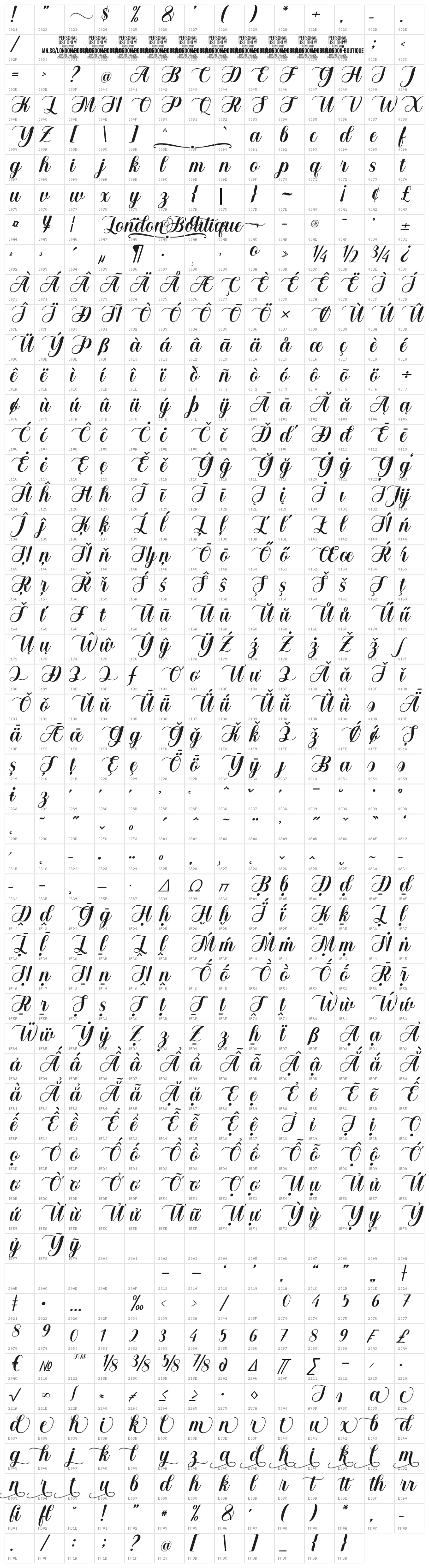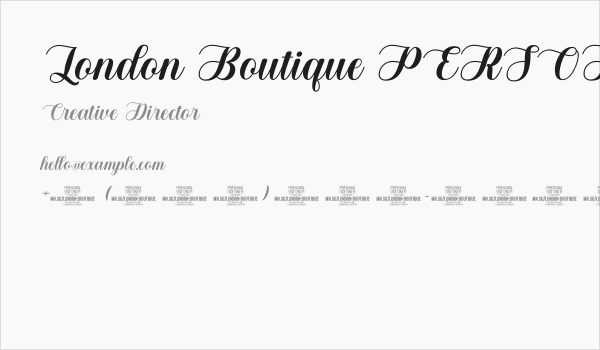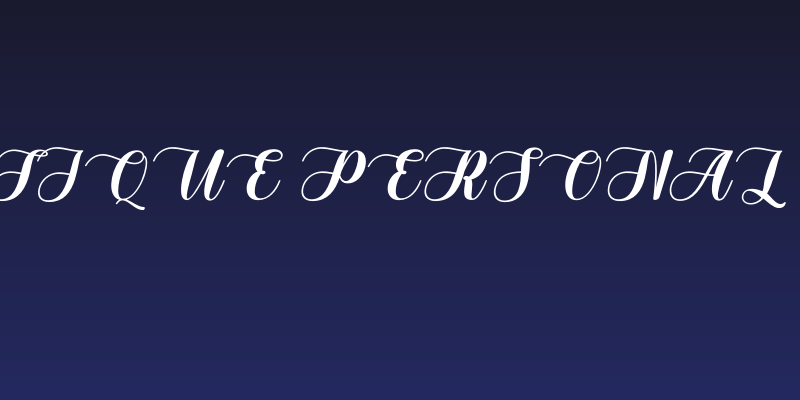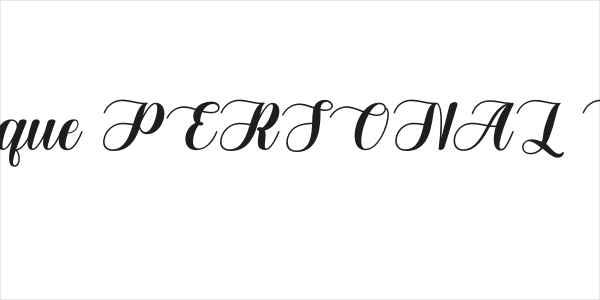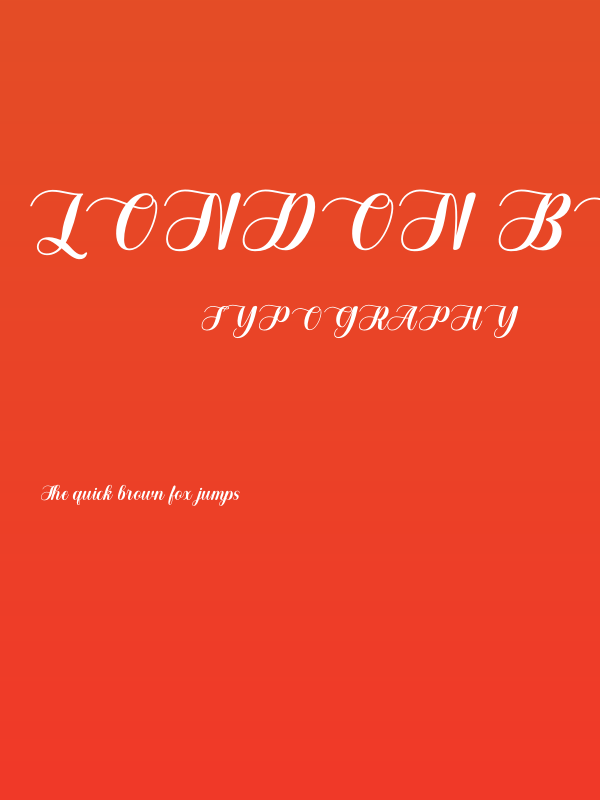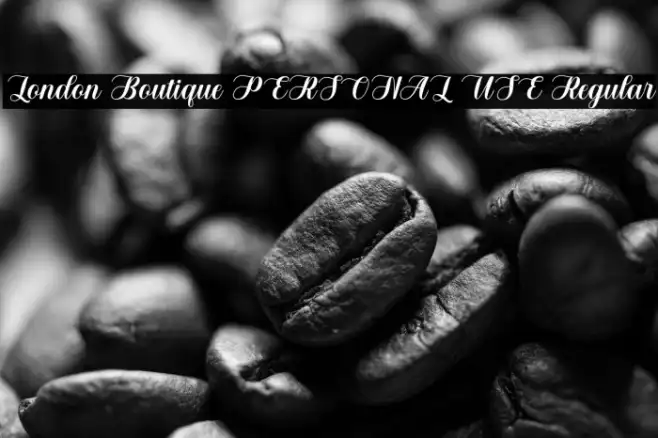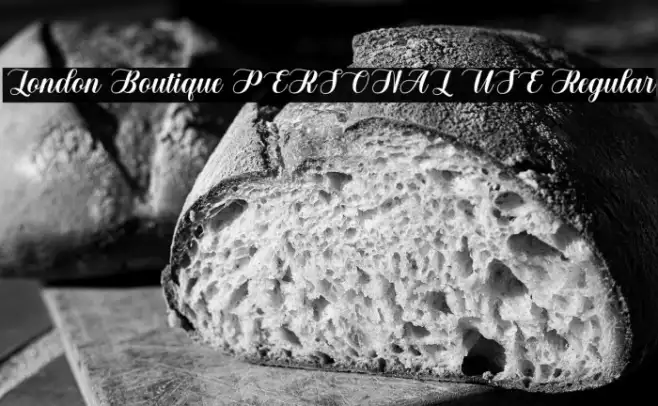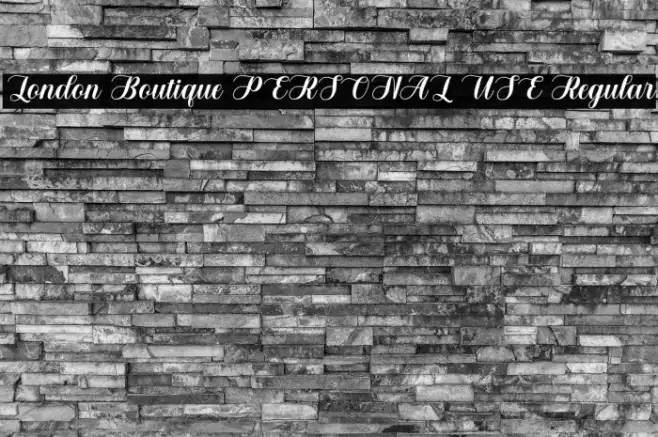
London Boutique PERSONAL USE Regular Font
London Boutique PERSONAL USE Regular Description
This font exudes elegance and sophistication with its flowing, cursive style. The uppercase letters are intricately designed with sweeping curves and flourishes, giving a sense of movement and grace. The lowercase letters maintain a consistent flow, complementing the uppercase with their smooth, rounded forms. The numerals and special characters are crafted with the same attention to detail, ensuring a cohesive look throughout. This font is perfect for projects that require a touch of luxury and refinement, such as wedding invitations, high-end branding, or elegant signage.
| Overall Style | Elegant |
| Use Case | Logos, Invitations, Decorative text |
| Proposed Projects | Ideal for wedding invitations, luxury branding, and elegant signage. |